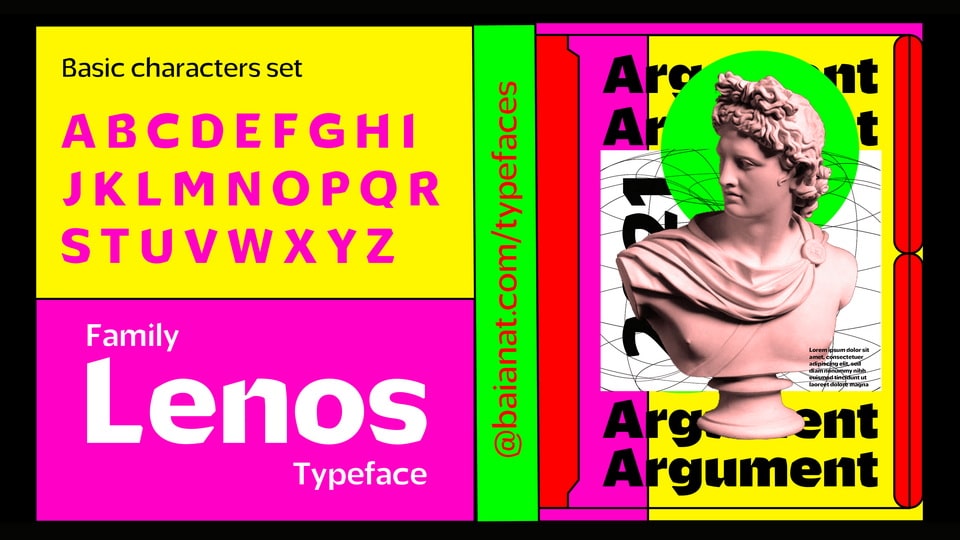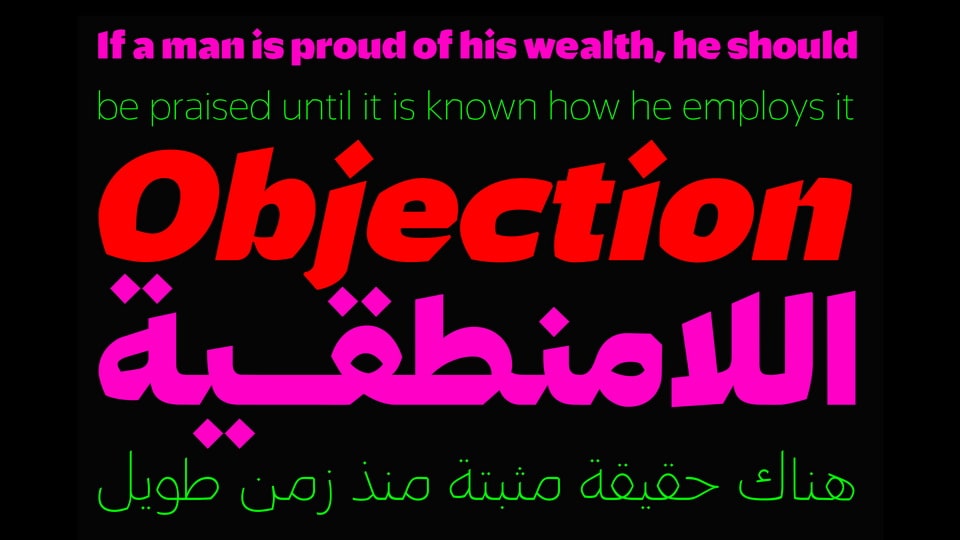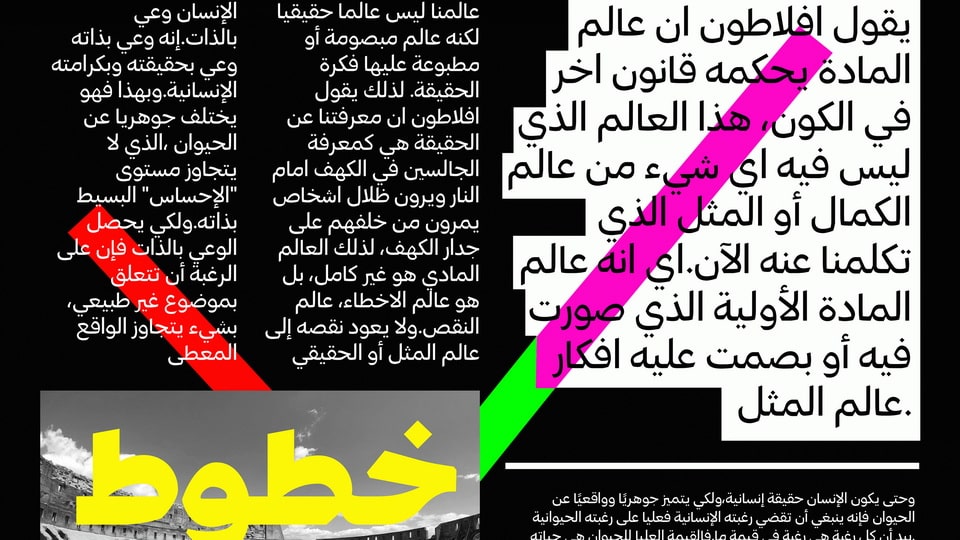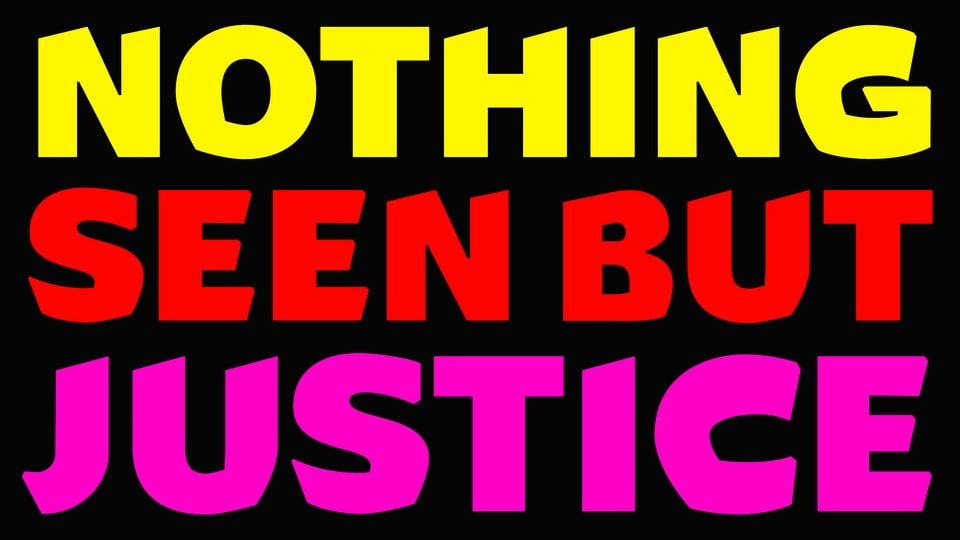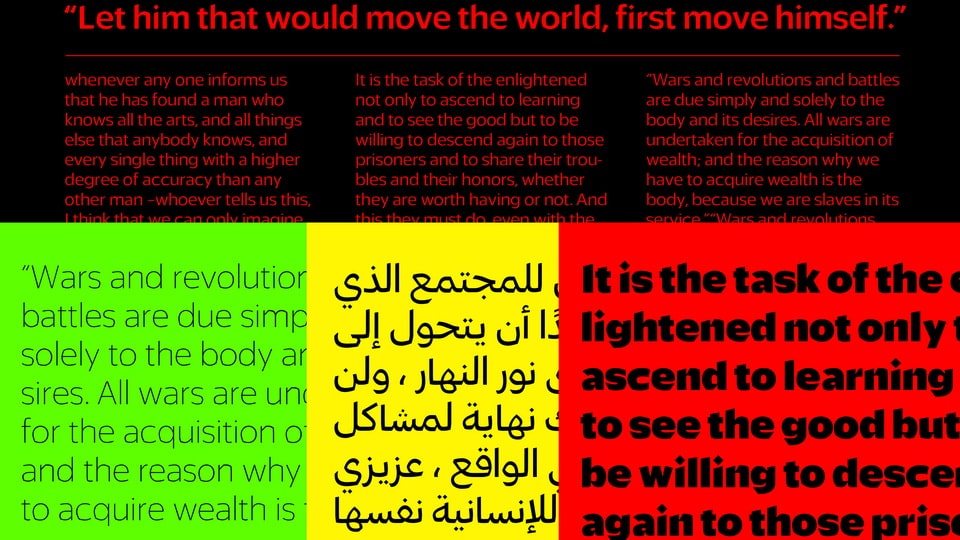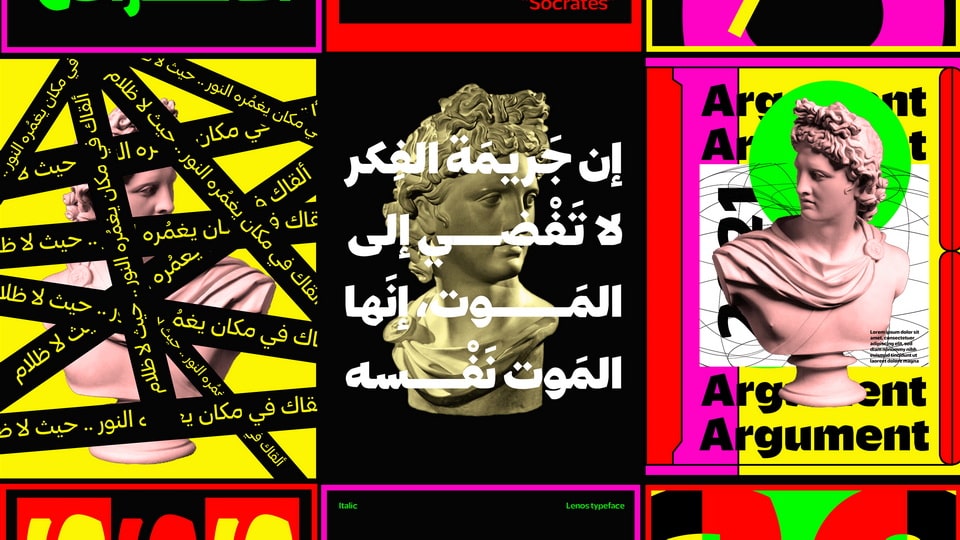
Lenos is the modern version of the old Arabic script “Naskh”. A robust modern typeface that combines the sans and the “Naskh” into one strong type family with 9 different weights starting from thin to black with its all italic options.
Digging through all the historical Arabic typography basics its rich culture we wanted to come up with a modern typography that can survive all the hurdles we faced using the old Arabic scripts, starting by widening the counters of each letter to create various bold weights while maintaining the readability of letter which in turn create higher legibility in smaller font weights.
Lenos combines more than 50 languages varying between Urdu, Persian, Spanish, Turkish, .. etc. All can be used in different editorial printed applications like newspapers, magazines, books, etc. It also can be used digitally in websites and mobile applications to enhance the reading experience through the applications.